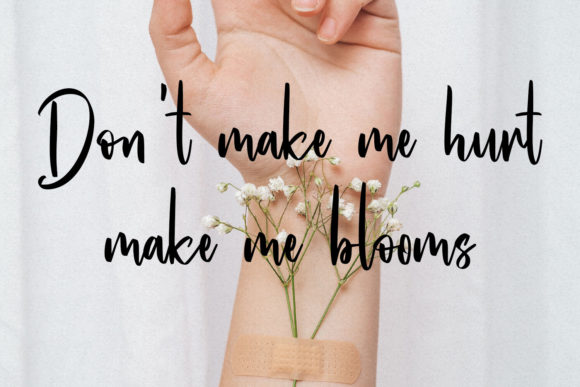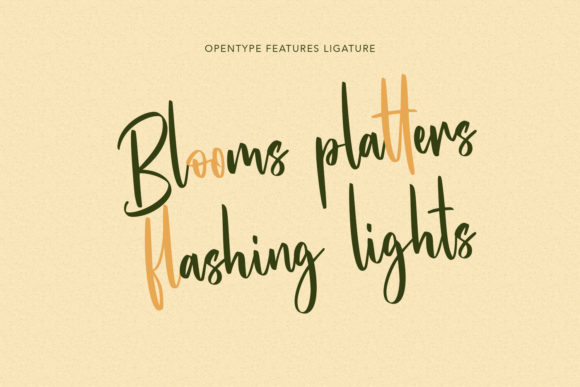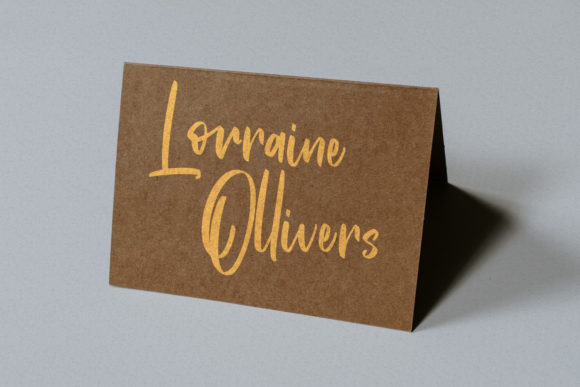
The Perfect Script Font to Elevate Your Creations
Have you ever been in the midst of a creative project, staring at a blank canvas or page, and suddenly, the perfect font pops into your mind? For designers, this moment is pure magic, and it’s exactly what happens when you discover the Hunnyflash Font.
This dazzling script font is more than just a pretty face – it’s a masterfully crafted tool that adds depth and character to any design. Whether you’re working on a wedding invitation, a social media campaign, or a brand identity, the Hunnyflash Font is sure to be a valuable asset in your font library. Its highly detailed design makes it a standout choice for designers who want to add a touch of elegance and sophistication to their work.
Hunnyflash Font Key Features
- Character Count: The font includes a vast character set, covering over 1,000 glyphs, including Latin, Cyrillic, and Greek alphabets, as well as various symbols and punctuation marks.
- Unique Characteristics: The font features a distinctive, hand-drawn style with bold lines and rounded edges, giving it a playful and energetic feel that is perfect for creative and artistic projects.
- Font Weight: The font includes multiple weight variations, from Light to Extra Bold, enabling designers to achieve the desired level of emphasis and visual impact.
Hunnyflash Font Review
I recently had the chance to work with the Hunnyflash font, and I must say it’s a mixed bag. Here’s my honest review.
- Unique character: Hunnyflash has a distinctive, quirky feel that can add a lot of personality to a design.
- Playful vibe: The font is perfect for projects that need a lighthearted, whimsical touch.
- Good legibility: Despite its playful nature, Hunnyflash is still easy to read, even at smaller font sizes.
- Not ideal for body text: Hunnyflash is better suited for headlines or titles, as its unique character can be distracting for large blocks of text.
- Limited customization options: The font is available in a limited range of weights and styles, which can make it less versatile than other options.
- May not be suitable for formal designs: Hunnyflash is a playful font, and it may not be the best choice for formal or professional projects.
Overall impression
Hunnyflash is a fun, unique font that can add a lot of personality to a design. While it may not be the best choice for every project, it’s definitely worth considering for designs that need a playful touch. Just be sure to use it thoughtfully and in moderation.
Hunnyflash Font is ideal for:
1. Creative projects that require a unique and playful touch.
2. Branding and marketing materials that need a distinctive font style.
3. Digital art and graphic design projects that require a bold and eye-catching font.
Alternatives to Hunnyflash Font for Designers
Great Vibes Font is a modern, elegant script font ideal for use in invitations, wedding stationery, and other creative projects. It’s perfect for designers looking for a unique and sophisticated feel. Compared to Hunnyflash Font, Great Vibes Font has a more refined and polished appearance, making it suitable for high-end designs.
Alex Brush Font is a beautiful, handwritten font that works well for logos, branding, and creative typography. It’s perfect for designers who want to add a personal touch to their designs. Compared to Hunnyflash Font, Alex Brush Font has a more organic and natural feel, making it suitable for designs that require a human touch.
Pacifico Font is a beautiful, modern script font that’s perfect for use in logos, branding, and packaging designs. It’s ideal for designers who want to add a touch of elegance and sophistication to their designs. Compared to Hunnyflash Font, Pacifico Font has a more relaxed and casual feel, making it suitable for designs that require a laid-back vibe.